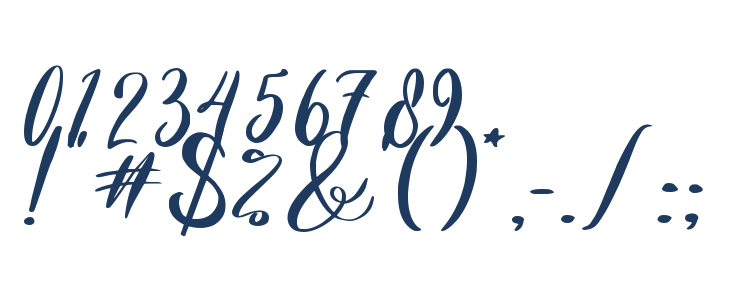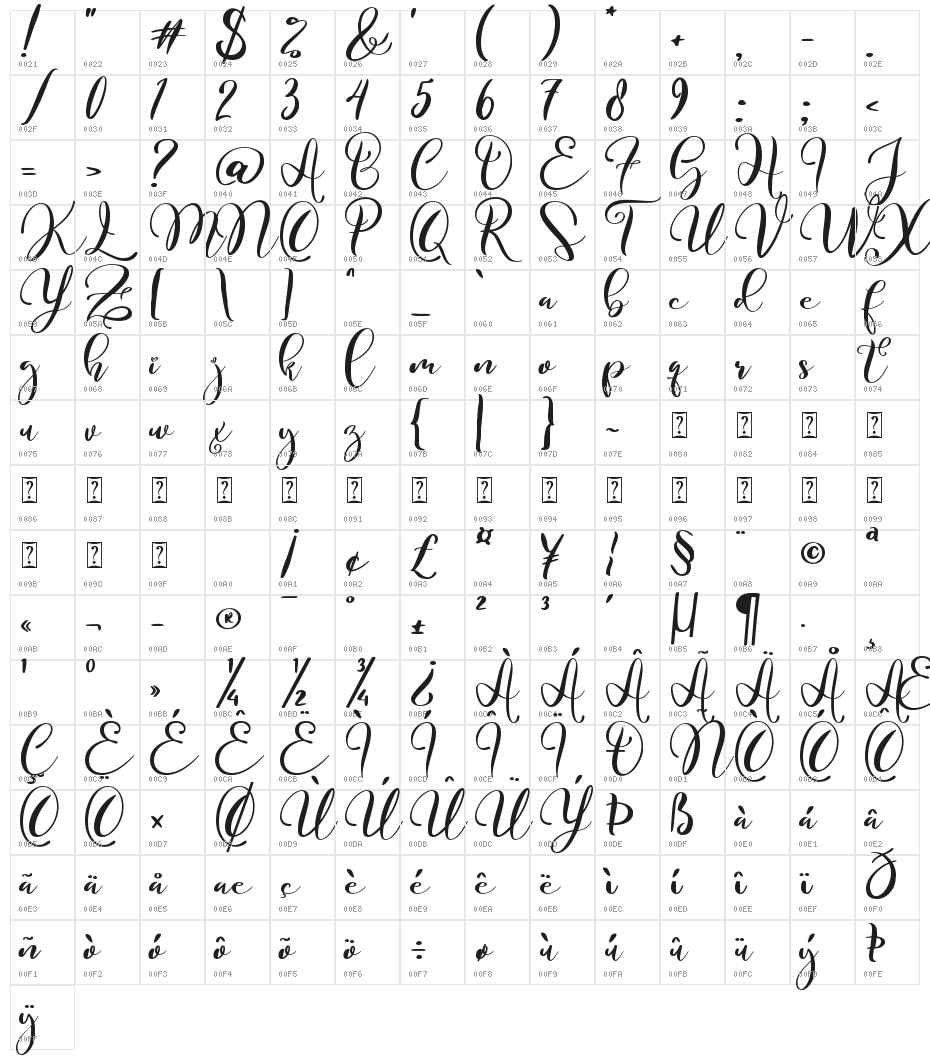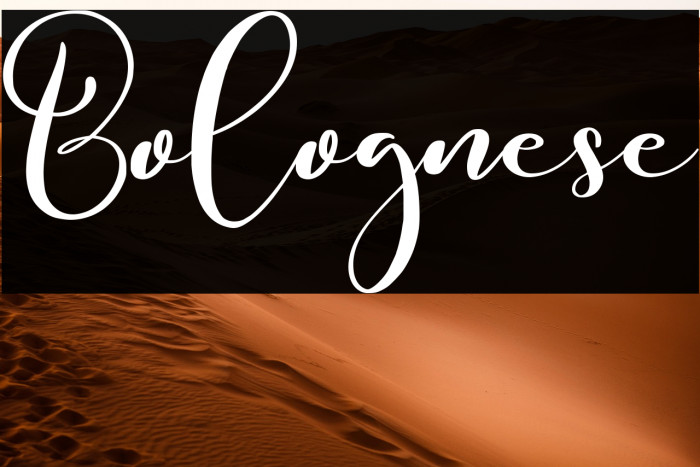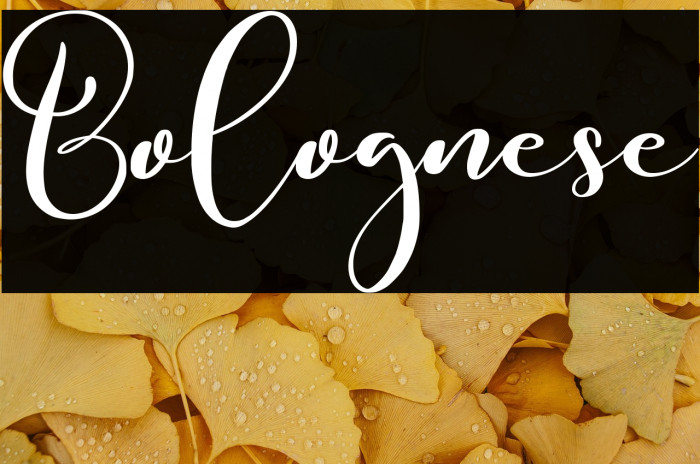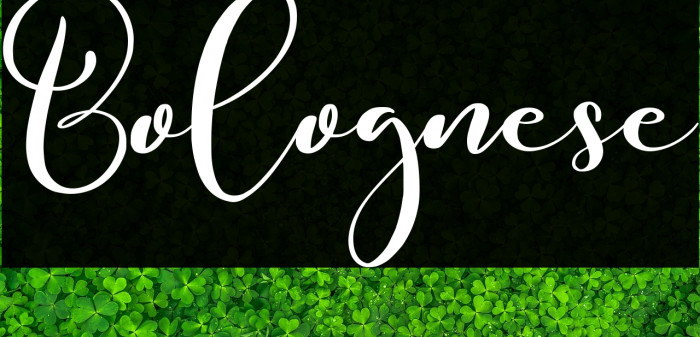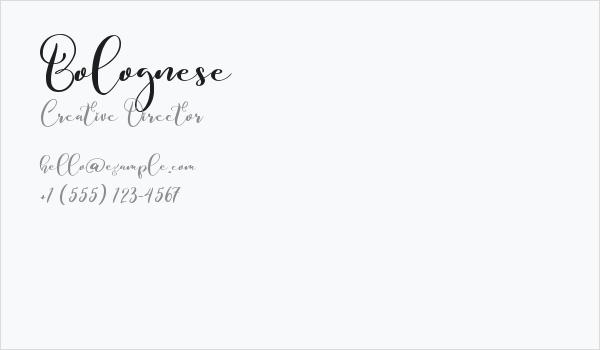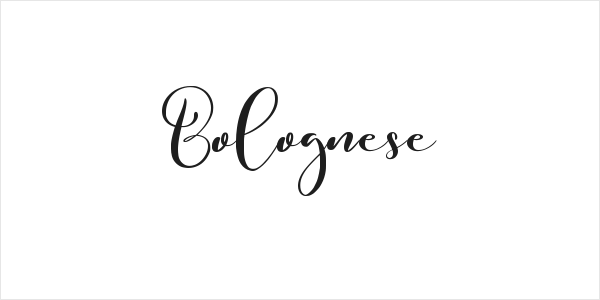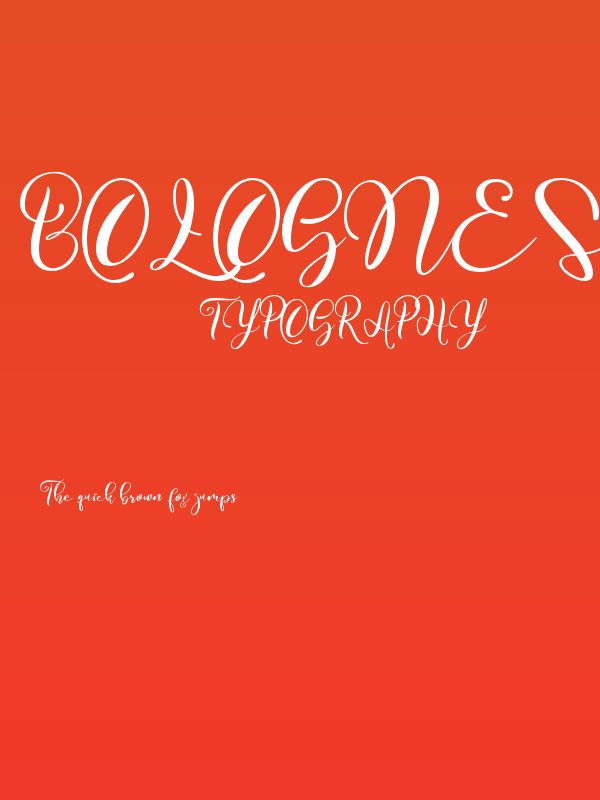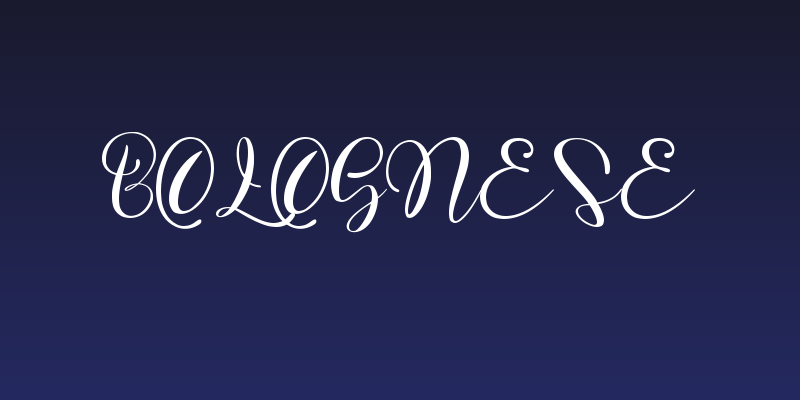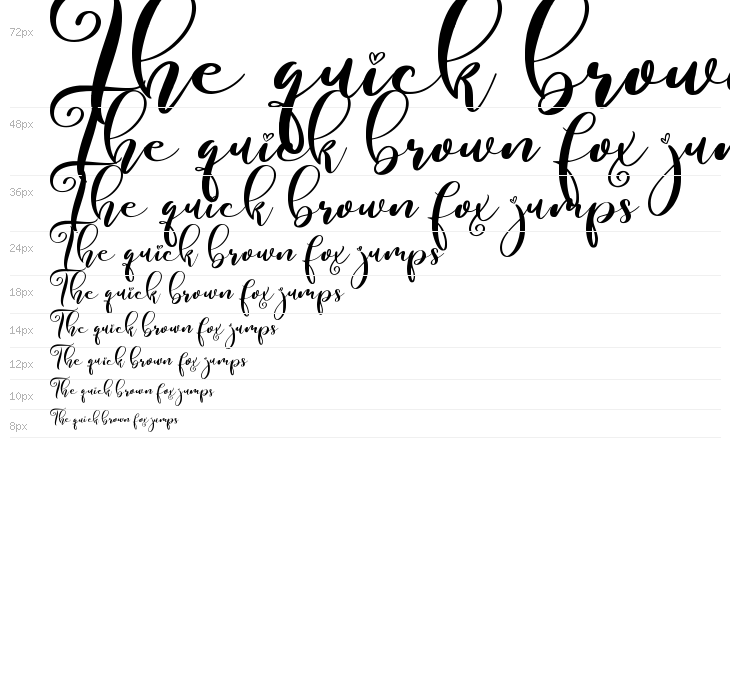
This elegant script font features flowing, cursive letters with a distinct calligraphic style. The uppercase letters are ornate and sweeping, with flourishes that add a touch of sophistication. The lowercase letters maintain a consistent flow, with some characters featuring unique loops and swirls that enhance the overall aesthetic. The numbers are bold and maintain the script style, ensuring they complement the letters seamlessly. Special characters are designed with the same attention to detail, making them suitable for decorative purposes. This font exudes a sense of elegance and is perfect for projects that require a touch of class and refinement.
| Overall Style | Elegant, Decorative |
| Proposed Projects | Ideal for wedding invitations, elegant branding, greeting cards, and luxury product packaging. |